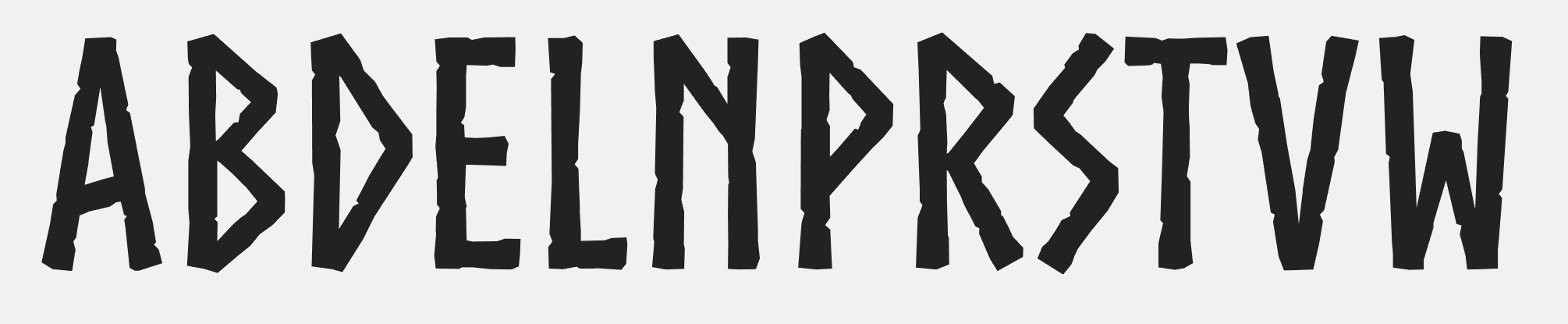
Distressed Sans-Serif Typeface Very Likely on a Free Font Site
I have a client who needs type modified.  Unfortunately, she cannot recall either the name or where she found it.  What is known:
1. Exists digitally - the letter forms come from an Adobe Illustrator file
2. Probably came from an on-line free typeface site
3. Might have been called "Dwarven" or "Dwarvish"